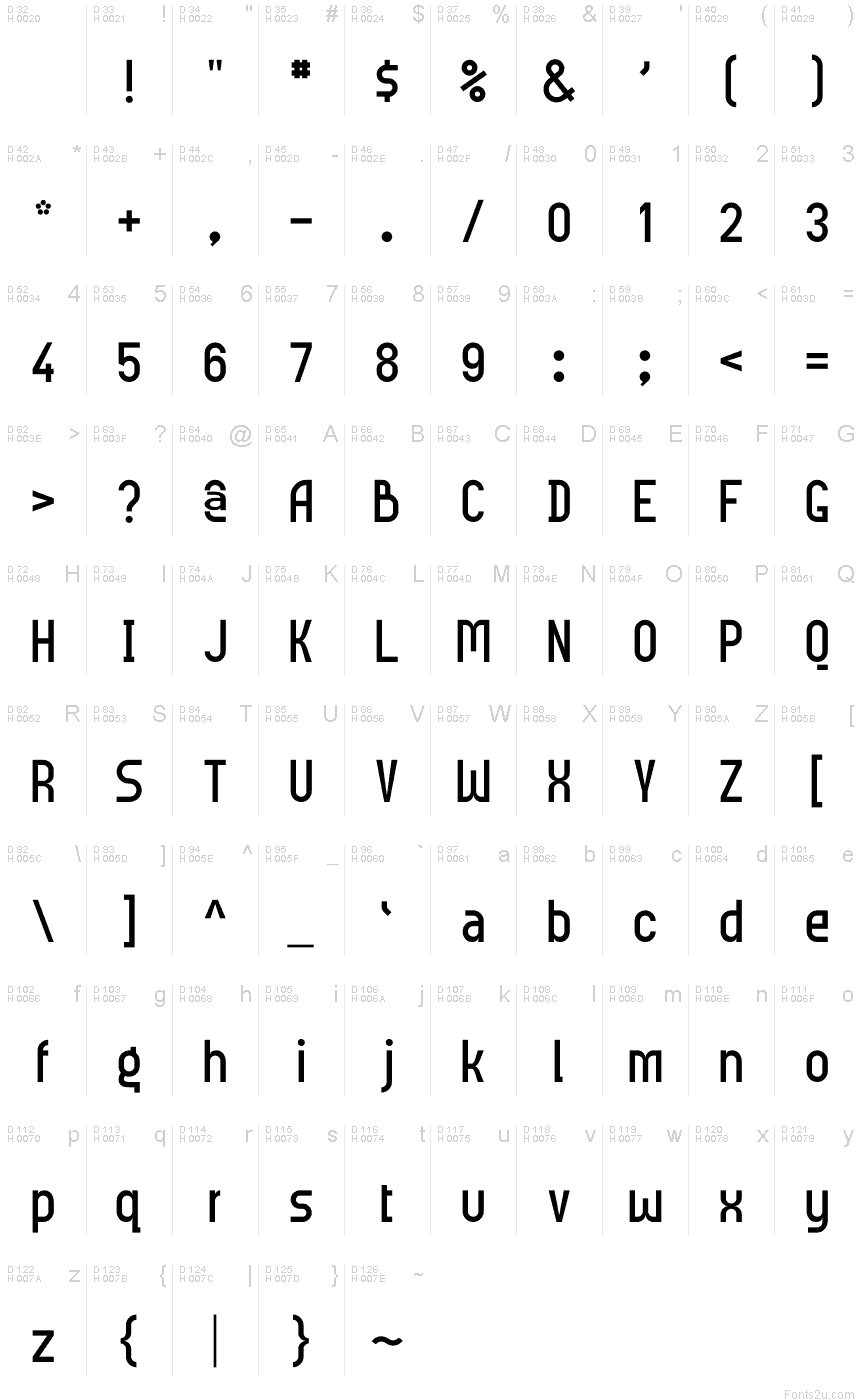
Meridiana Regular
Meridiana font by Darren Rigby is a free display font with rounded geometric forms and a compact, structured build. The sample combines straight verticals, softened curves, and squared shaping in a way that gives it a controlled, logo-like character.
Meridiana works well for logo design, poster titles, packaging, event graphics, and signage because its letterforms carry a clear graphic pattern without extra ornament. It also suits cover art and brand marks when a compact display face needs to look tidy, distinctive, and self-contained.